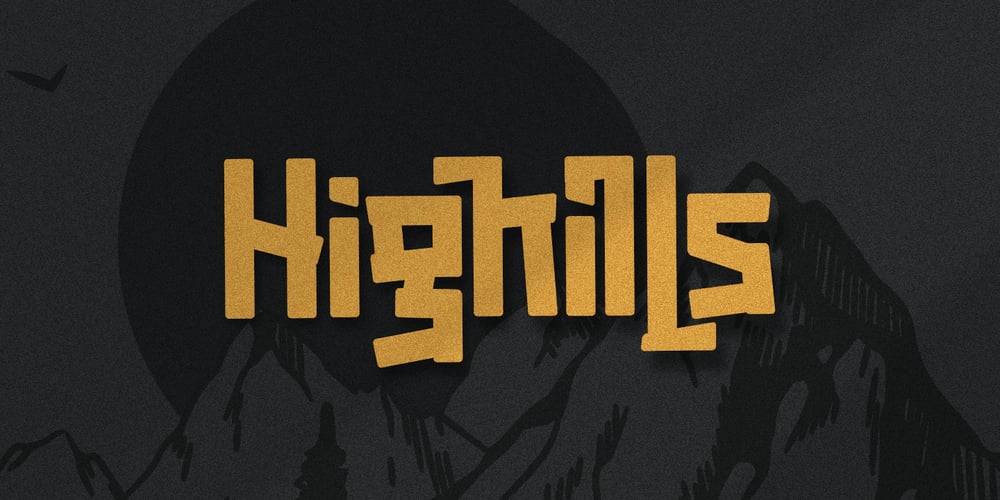
Highills Font Family was designed by Jarnawi Saja and published by Grontype. Highills contains 1 styles and family package options. Highills is awesome bold decorative font. created in rounded corner that give this font a tough and calm feel. this font has s good looking as header and as text both. Highills is fit perfectly for branding projects, movies, logos, social media posts, posters, books, and many more.Features: Basic Latin Glyphs Bold Uppercase and Lowercase Letters Alternates & Ligatures Numeral and Punctuation Multilingual Support Thankyou for picking up this font, hope you enjoy it.Regard. Grontype